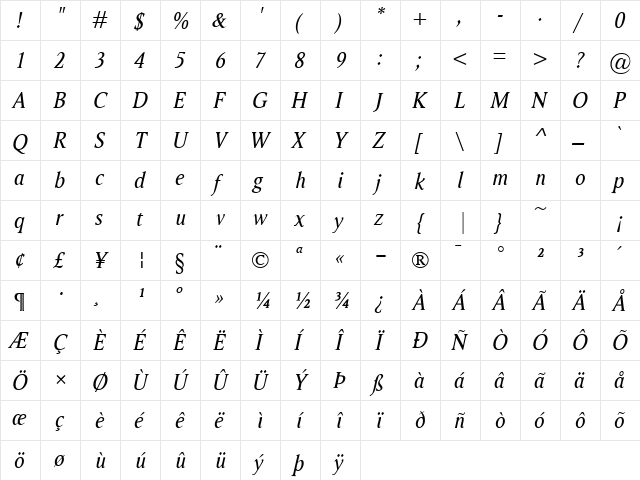
Ragnar Italic
Design Context for Ragnar Typeface
Ragnar is a composed and adaptable typeface that performs quietly and consistently across a wide range of design contexts. The slanted form adds forward momentum and visual energy.
Pro Tip: Try Ragnar for annotation and caption copy alongside an upright companion — the contrast in angle creates a dynamic but ordered typographic system.